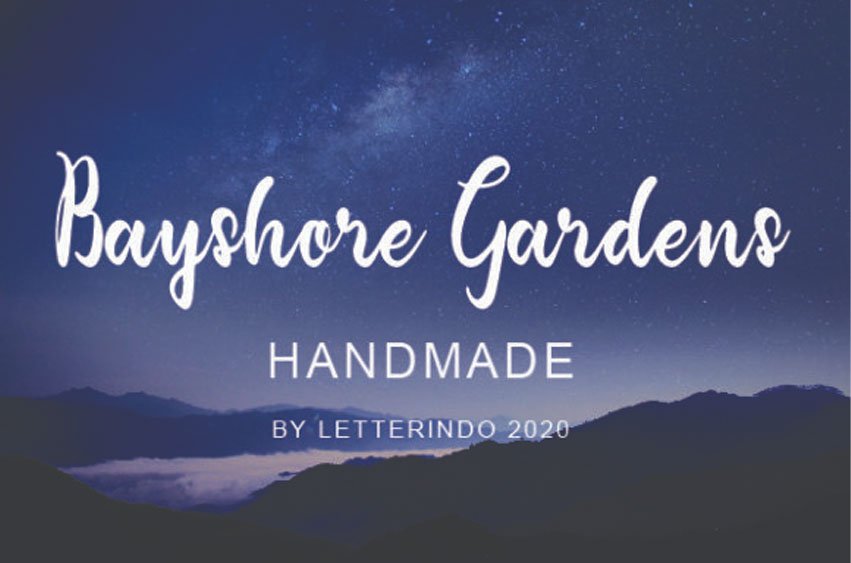
Bayshore Gardens Font is a magical handwritten font carefully created with a touch of elegance. This is a beautiful combination of timeless elegance and authentic calligraphy.
It features an incredibly classic style, while still keeping a friendly feel. Get inspired by its authentic feel and use it to create gorgeous wedding invitations, beautiful stationary art, eye-catching social media posts, and cute greeting cards.